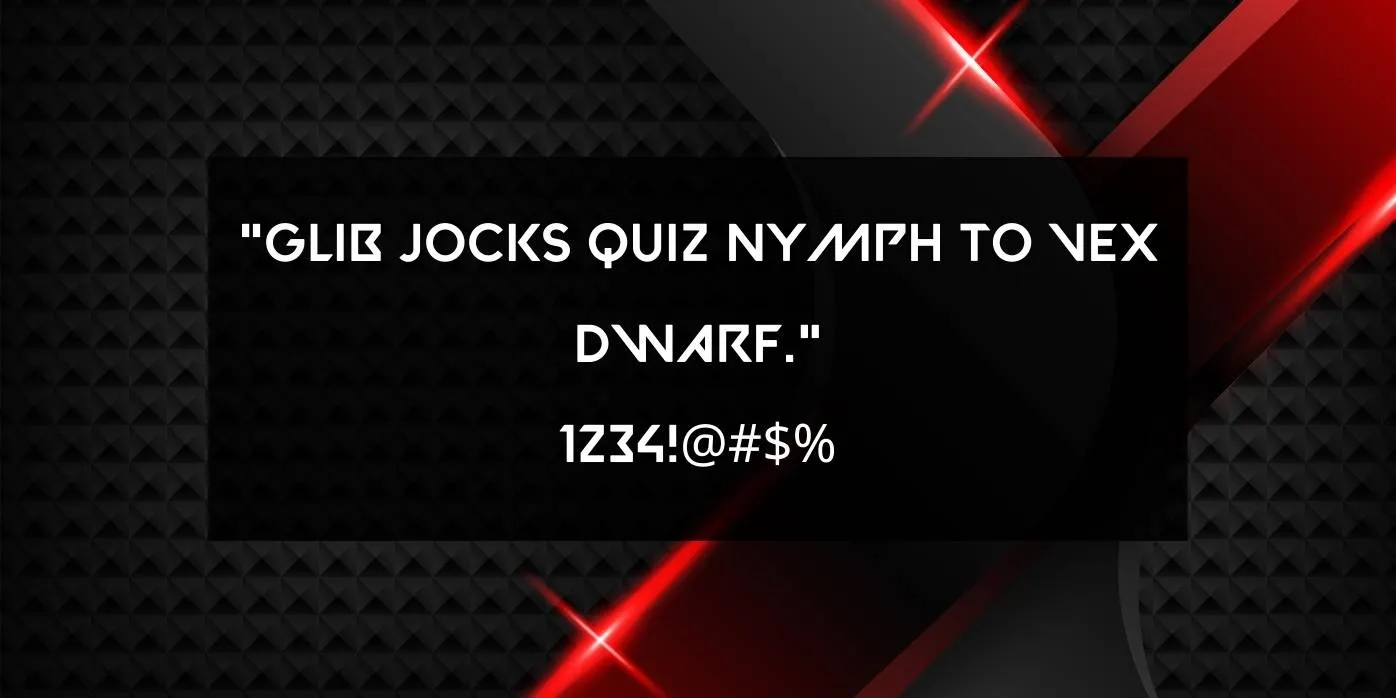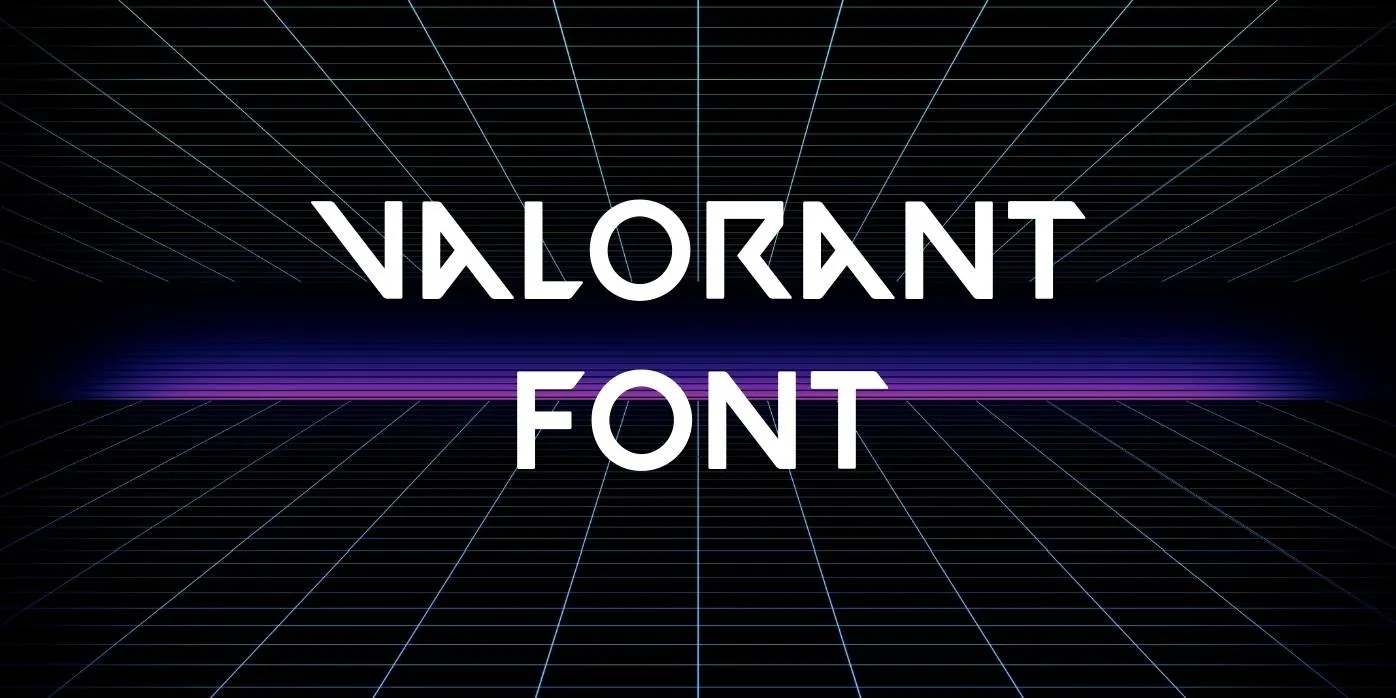
Valorant Font
Valorant Font is a famous typeface that belongs to the Techno typeface. Bryan T. developed this typeface It was released in the year 1997. The aim of this typeface is to provide a unique look to the documents.
This typeface is widely used for its readability and easy-to-use features. It is best for use in Canva. This family consists of various different styles such as Valorant regular, Valorant Bold, and Valorant Mono. All of these styles have their own unique features that make them perfect for various projects.
Its copy and paste function is best for text designs. You can also use sega font which is closest to this font family. Valorant Font is a great choice for those who are looking for a simple and elegant typeface. It is perfect for both body text and headlines.
The readability of this typeface is very good, making it a great choice for long blocks of text. If you are looking for a typeface that is both unique and stylish, then Valorant Font is the perfect choice for you. It is perfect for any project where you want to add a touch of elegance. Its generator tool is suitable for graphic designs.